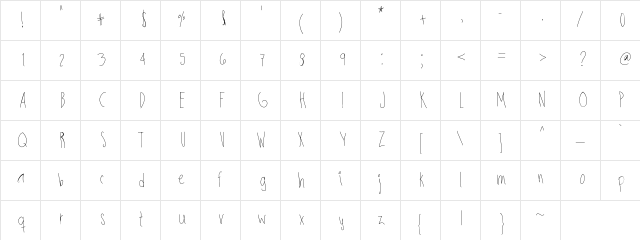
Complete SkinnyBitch Medium glyph index. Displaying only characters natively supported by SkinnyBitch Medium font.
SkinnyBitch is a composed and adaptable typeface that performs quietly and consistently across a wide range of design contexts.